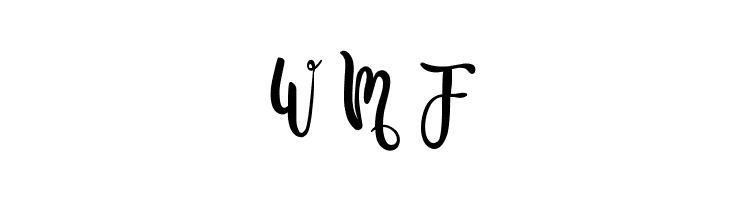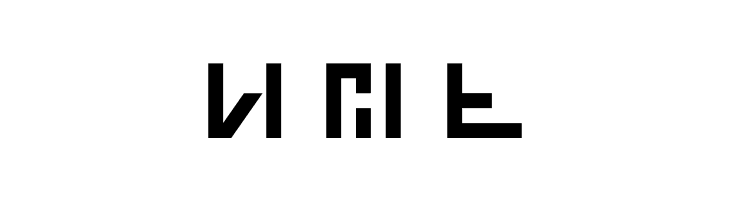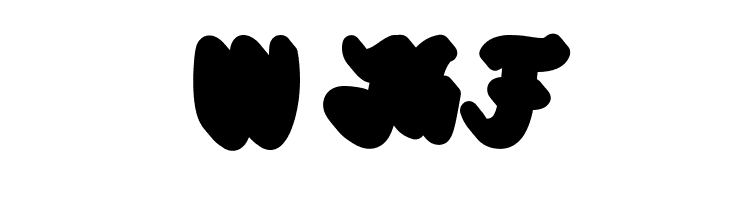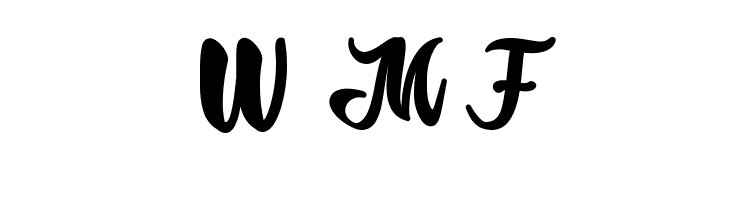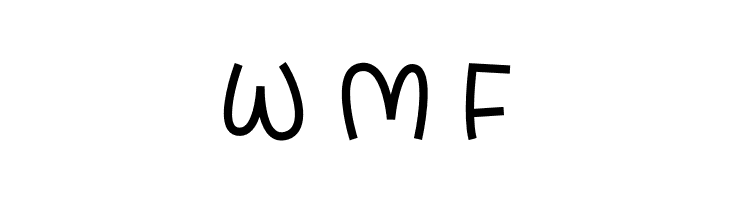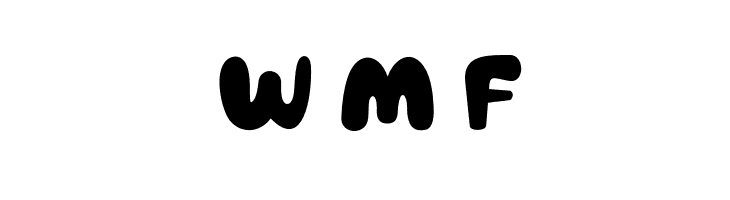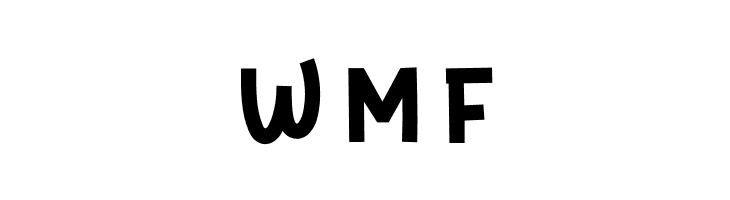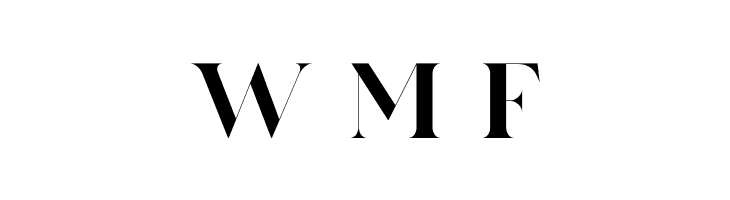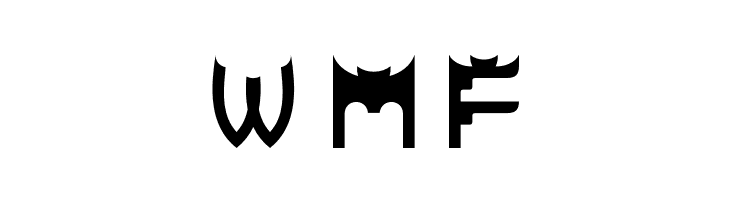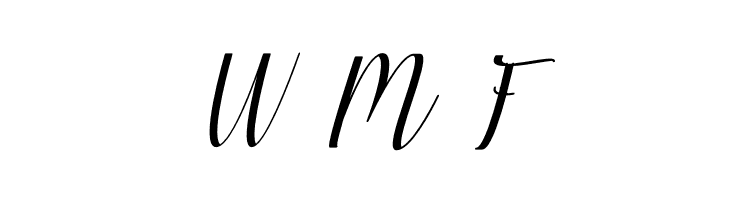
A bold, playful font with rounded, cartoonish characters.
A whimsical, hand-drawn font with a magical, gothic flair.
A playful, bold font with rounded, bubbly characters perfect for fun and approachable designs.
A playful, hand-drawn font with bold, rounded strokes and a whimsical style.
A playful, bold font with rounded characters and wide spacing.
A futuristic and geometric font with bold, angular letterforms.
A casual, fluid handwritten script with smooth, connected letters.
A bold, blackletter-style font with sharp, angular strokes and a gothic flair.
A delicate, handwritten script font with elegant, flowing lines.
A modern, elegant script font with flowing, cursive characters and medium contrast.
A classic serif font with elegant proportions and medium contrast, ideal for formal and versatile applications.
A playful and elegant script font with a handwritten style.
A bold, geometric font with sharp angles and unique cutouts, perfect for modern designs.
A bold, modern font with geometric shapes and clean lines, perfect for striking headlines.
A bold, modern font with clean, geometric lines and a contemporary feel.
A clean, modern font with uniform stroke width and minimalist design.
A bold, flowing script font with high contrast and elegant curves.
A bold, playful font with a 3D extruded effect, ideal for eye-catching designs.
A playful and whimsical font with rounded, friendly letterforms.
A bold, playful font with a hand-drawn, casual style.
A casual, handwritten font with a playful and approachable style.
A futuristic, geometric font with sharp angles and a bold, digital aesthetic.
A bold, space-themed decorative font with playful cosmic elements.
A classic serif font with high contrast and elegant strokes, perfect for formal use.
A modern, geometric sans-serif font with clean lines and uniform stroke width.
A modern, geometric sans-serif font with a condensed and uniform design.
A bold, expressive script font with high contrast and dynamic curves.
A bold, modern sans-serif font with clean lines and strong geometric shapes.
A high-contrast, elegant serif font with bold uppercase and smooth lowercase letters.
A playful, bold font with rounded strokes and a hand-drawn feel.
Elegant, high-contrast decorative script with flowing strokes.
A bold, playful font with a hand-drawn, informal style.